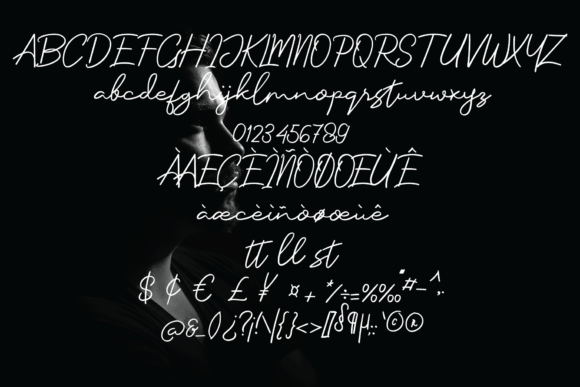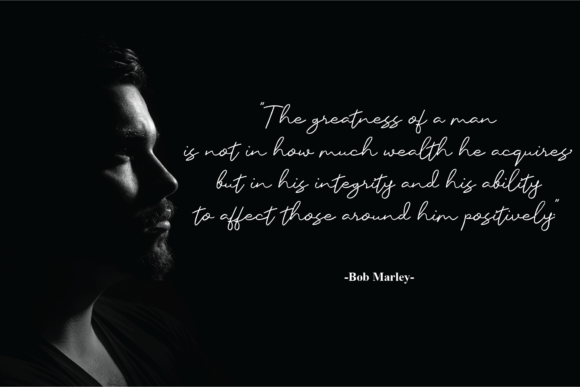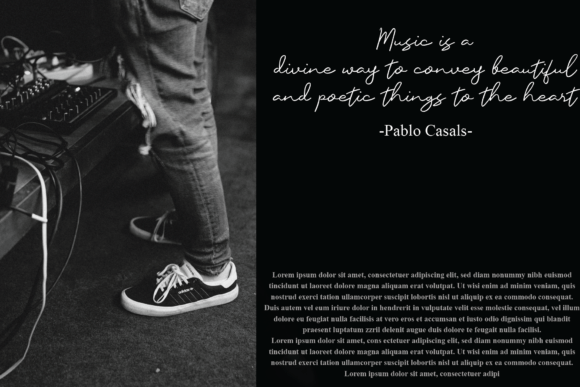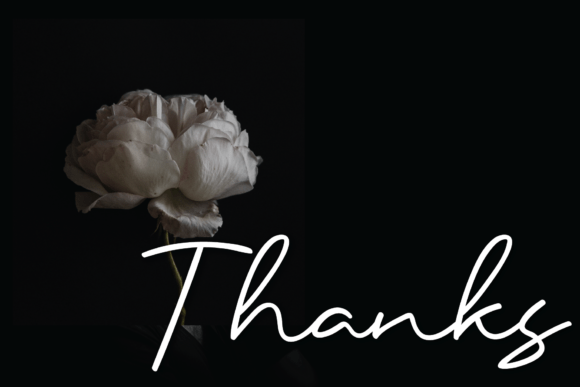
Better Font: Elevate Your Designs with Elegant Handwritten Style
Are you looking for a font that adds a touch of elegance and modernity to your designs? Look no further than Better Font, a stunning handwritten font that is perfect for a variety of creative projects. In this article, we’ll explore the features and benefits of Better Font, and show you how it can elevate your designs to the next level.
What is Better Font?
Better Font is a beautiful, elegant handwritten font that is designed to add a personal touch to your designs. Its modern and sophisticated style makes it perfect for a wide range of applications, from wedding invitations and greeting cards to business cards, logos, and advertisements.
Key Features of Better Font
Better Font is characterized by its varied and interesting hand strokes, which are presented in the form of lines, fields, and stunning alternates. This unique feature gives your designs a distinctive and eye-catching look that is sure to capture attention.
Some of the key features of Better Font include:
- Elegant handwritten style: Better Font features a beautiful, flowing script that is reminiscent of handwritten writing.
- Modern and sophisticated: Despite its handwritten style, Better Font has a modern and sophisticated feel that makes it perfect for a wide range of designs.
- Varied hand strokes: The font features varied and interesting hand strokes, which add a touch of personality and whimsy to your designs.
- Stunning alternates: Better Font includes stunning alternates that allow you to add even more variety and interest to your designs.
Uses for Better Font
Better Font is a versatile font that can be used for a wide range of creative projects. Here are some ideas to get you started:
- Wedding invitations: Add a touch of elegance and romance to your wedding invitations with Better Font.
- Greeting cards: Use Better Font to create beautiful and personalized greeting cards for special occasions.
- Business cards: Elevate your business cards with Better Font’s modern and sophisticated style.
- Logos: Use Better Font to create a unique and memorable logo for your business or brand.
- Advertisements: Add a touch of personality and whimsy to your advertisements with Better Font.
- Quotes: Use Better Font to create beautiful and inspiring quote graphics.
Why Choose Better Font?
There are many fonts to choose from, but Better Font stands out for its unique combination of elegance, modernity, and personality. Here are some reasons why you should choose Better Font for your next design project:
- Unique and eye-catching: Better Font’s varied hand strokes and stunning alternates make it a truly unique and eye-catching font.
- Versatile: Better Font can be used for a wide range of creative projects, from wedding invitations to business cards.
- Elegant and modern: Better Font’s elegant handwritten style and modern feel make it perfect for designs that need to look sophisticated and professional.
Tips for Using Better Font
Here are some tips for getting the most out of Better Font:
- Experiment with different sizes and colors: Better Font looks great in a variety of sizes and colors, so don’t be afraid to experiment and find the combination that works best for your design.
- Use it sparingly: Better Font is a bold and eye-catching font, so use it sparingly to avoid overwhelming your design.
- Pair it with other fonts: Better Font pairs well with a variety of other fonts, so try pairing it with a sans-serif font for a modern and sophisticated look.
Better Font is a stunning handwritten font that is perfect for designers and crafters who want to add a touch of elegance and modernity to their designs. With its varied hand strokes, stunning alternates, and elegant style, Better Font is sure to elevate your designs to the next level. Whether you’re creating wedding invitations, business cards, or advertisements, Better Font is a versatile and eye-catching font that is sure to impress.